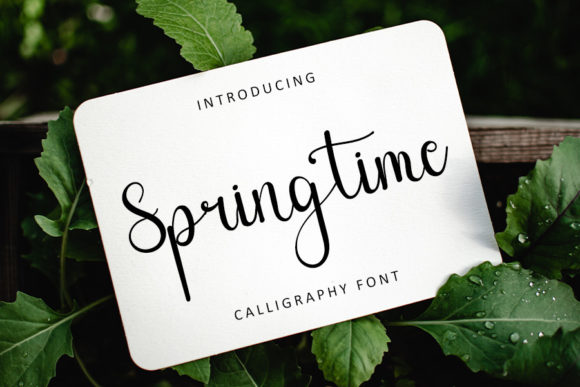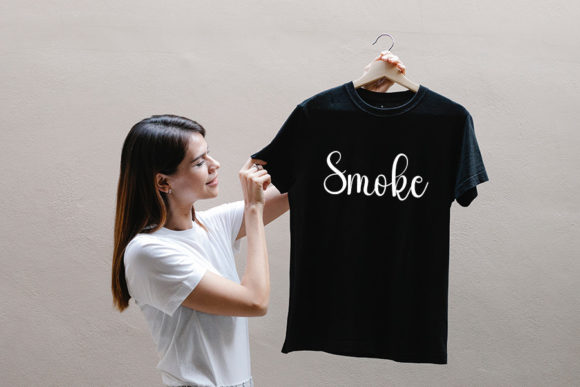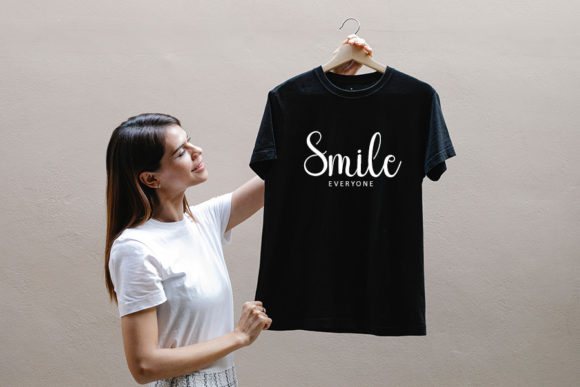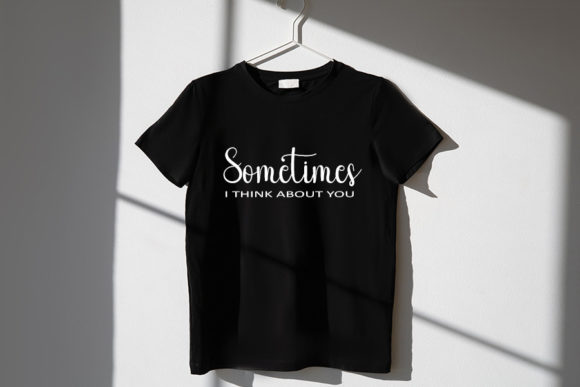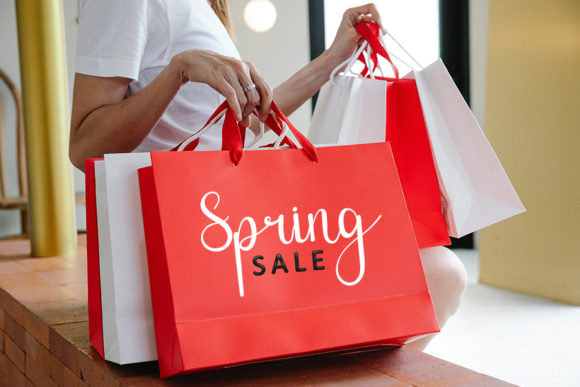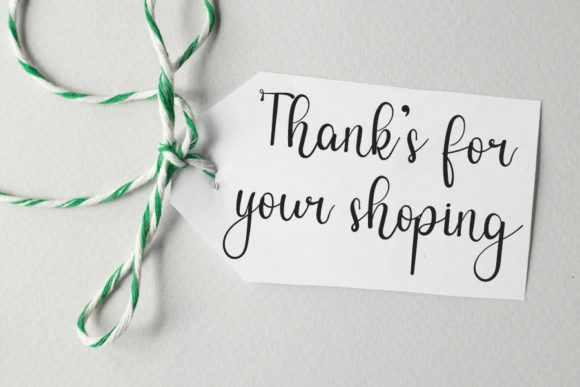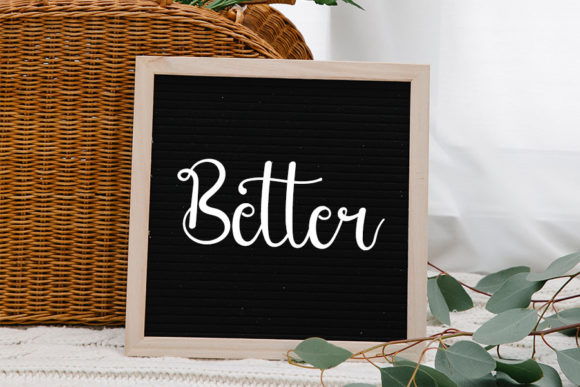
Spring Time Font
About Spring Time Font
Spring Time is a stylish and free-flowing handwritten font with a contemporary atmosphere and impeccable form, inspired by a timeless classic calligraphy. It will look outstanding in a wide range of contexts.